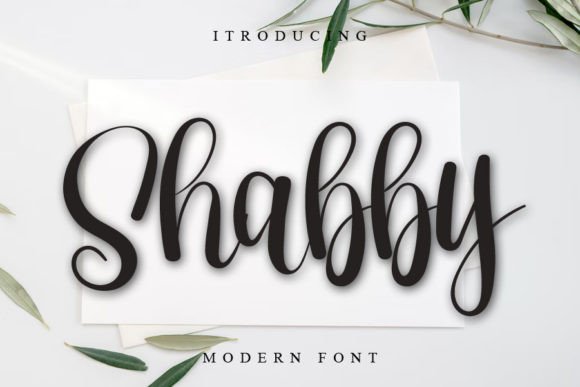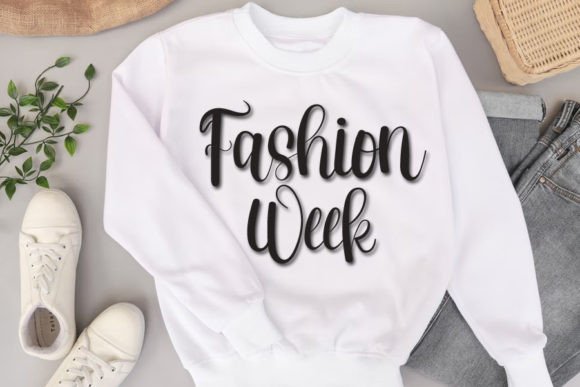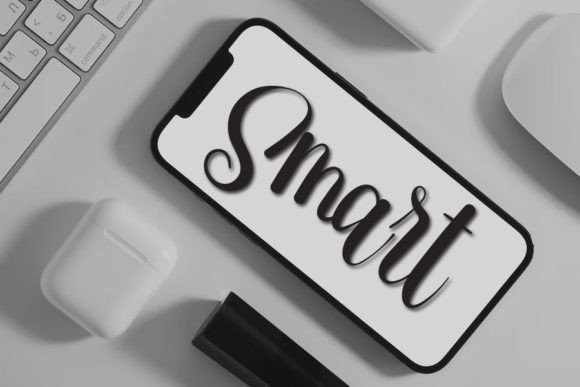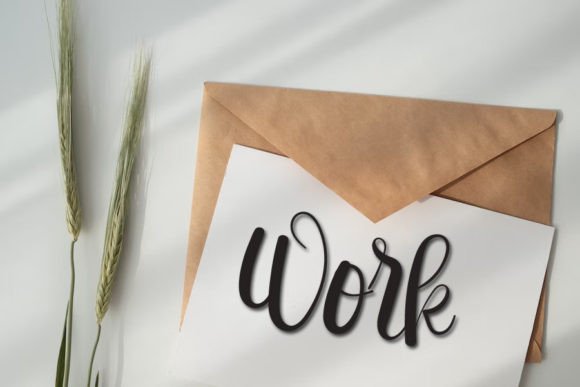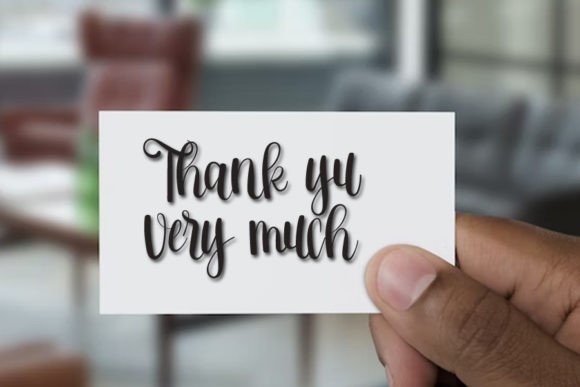
Shabby Font
Shabby Font: Fresh Handwriting for Charming Designs
“Shabby” is a fresh and beautiful handwritten script font that adds a touch of charm and authenticity to your design projects. It’s perfect for various creative applications, bringing a sense of natural beauty to your work.
Key Features of Shabby Font
• Fresh Style: Shabby brings a natural and beautiful feel to designs.
• Authentic Look: Creates a sense of genuineness in typography.
• Versatile Use: Suitable for many projects, from branding to invitations.
Shabby’s fresh style is ideal for creating authentic logo designs and branding materials that convey natural beauty.
Invitations and Stationery
Use Shabby to design beautiful invitations and greeting cards that stand out with their charming simplicity.
Digital and Print Media
The font’s captivating look makes it perfect for creating eye-catching social media graphics and print materials.
Why Choose Shabby Font?
Shabby offers more than just beautiful letters. Here’s why it stands out:
• Enhances overall aesthetics with its fresh and beautiful style
• Conveys a sense of natural beauty and simplicity effectively
• Adds a touch of timeless appeal to designs
By using Shabby, you open up new design possibilities. Its fresh style works well in many contexts, from poster designs to website headers. The font’s ability to convey authenticity can inspire creative ideas and help you approach projects from a fresh, natural perspective.
If you’re looking for a font that combines freshness with elegance, Shabby is an excellent choice. It’s perfect for adding a touch of natural beauty to your work, especially for projects that need an authentic, charming feel.
Explore how Shabby can transform your designs. From branding materials to personal creations, this font brings a fresh and captivating quality to your work.